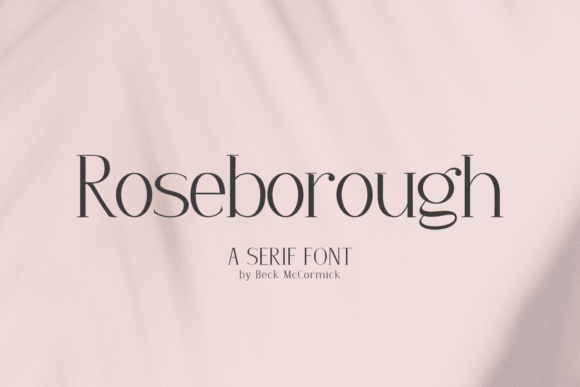
Looking for the perfect font to make your wedding invitations stand out? Look no further than Roseborough, the best font for wedding invites on the market! Created by the talented BeckMcCormick, Roseborough is an elegant and chic serif font that exudes sophistication and refinement.
The thin, graceful lines and subtle serifs of Roseborough make it a popular choice for high-end branding and editorial design as well. It is the epitome of understated beauty and classic style, making it a timeless choice for any project. With Roseborough, you can add an extra touch of elegance to any design project.
Whether you're a professional designer or someone planning their own wedding, Roseborough is the perfect font to make your project stand out. Its versatility and adaptability make it suitable for a wide range of applications, from elegant wedding invitations to sophisticated branding materials.